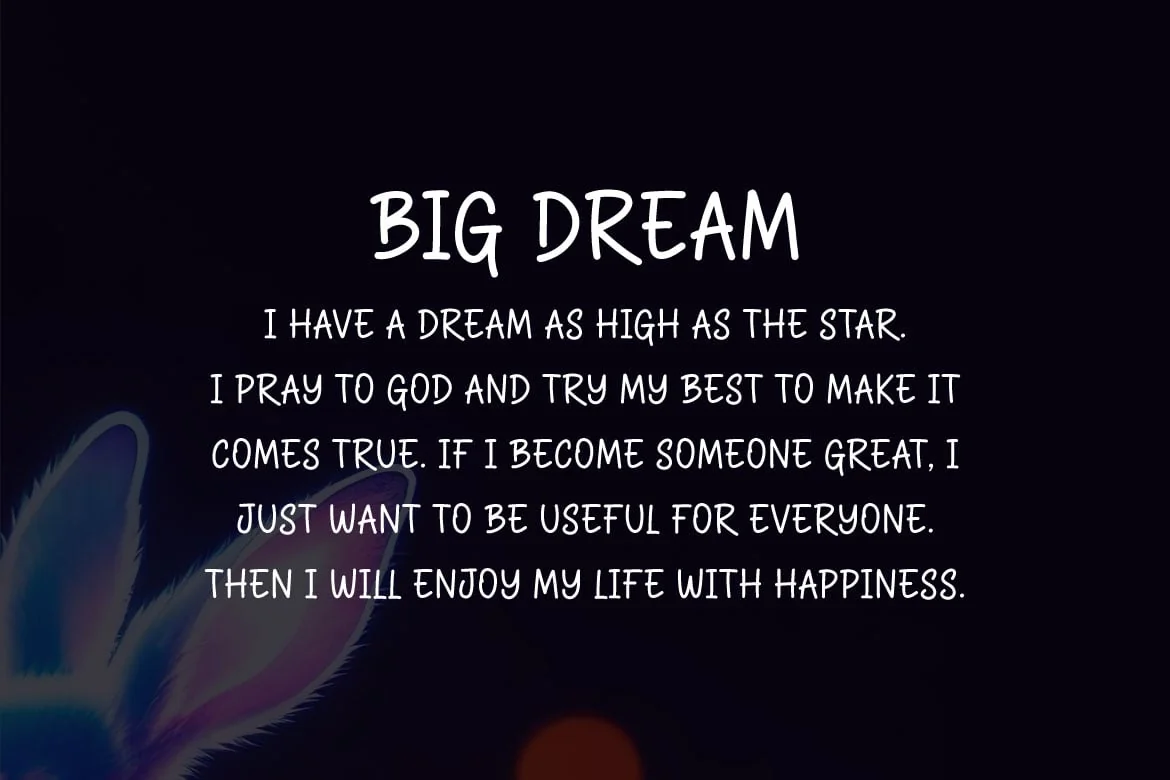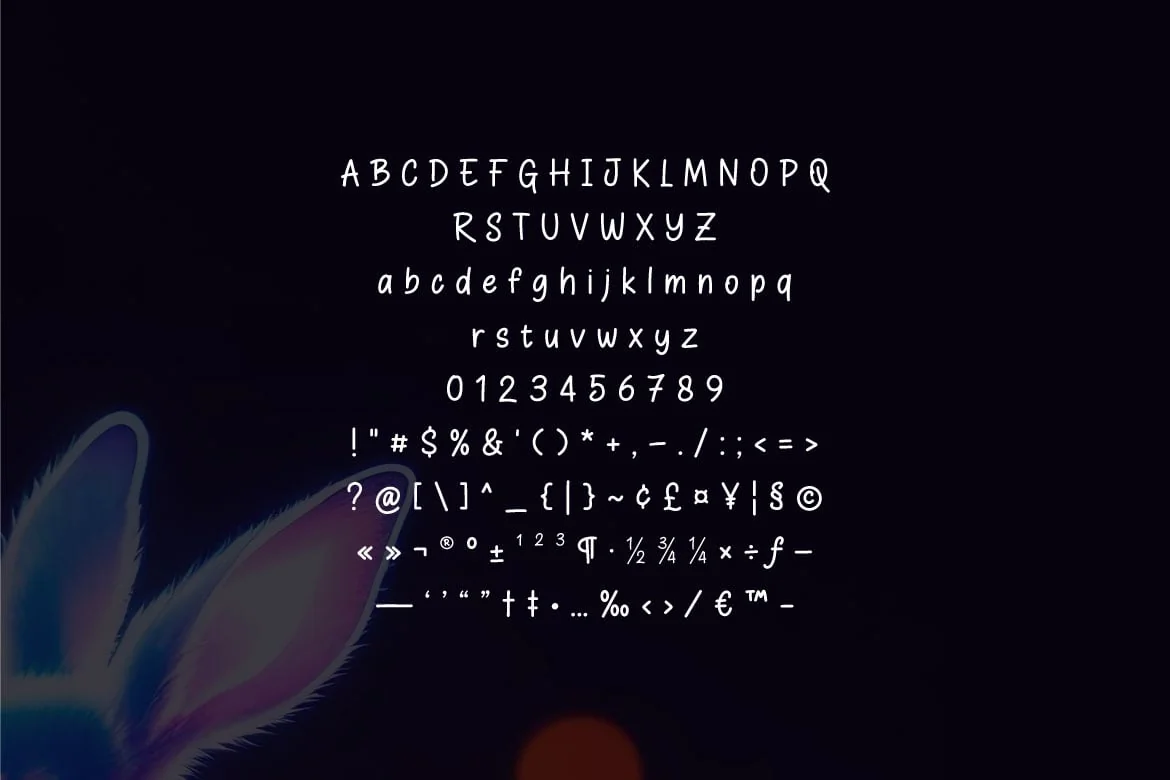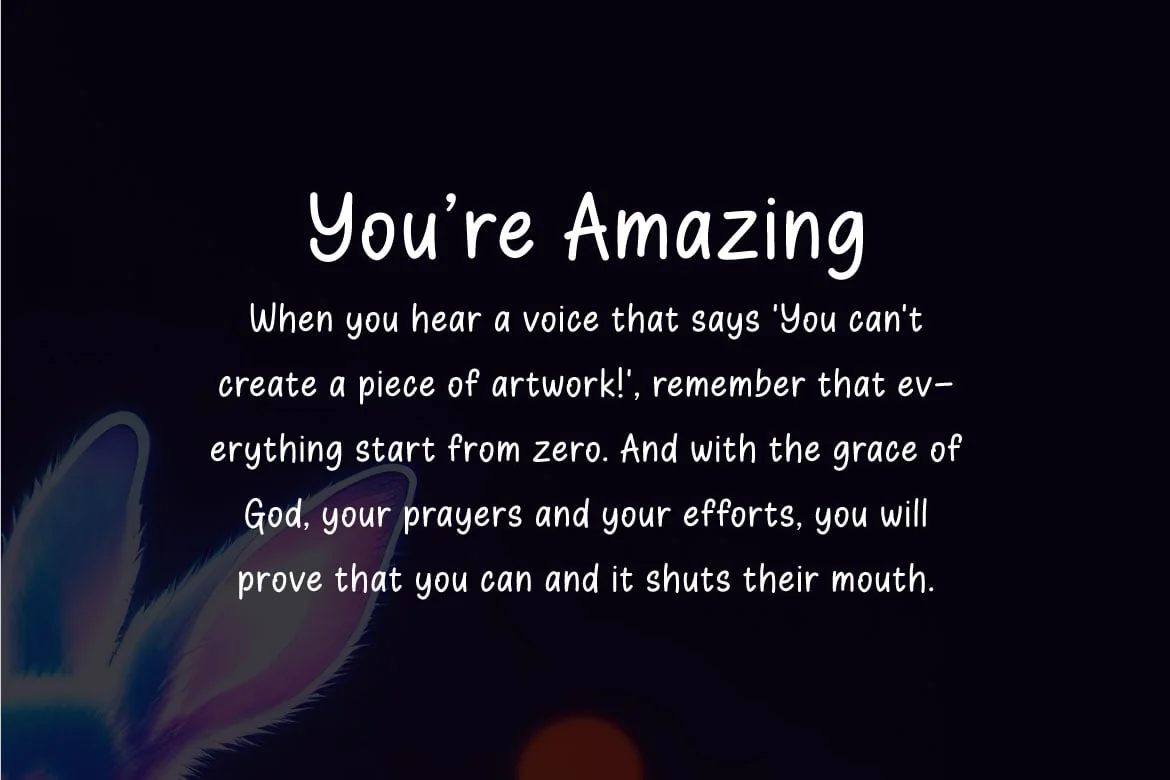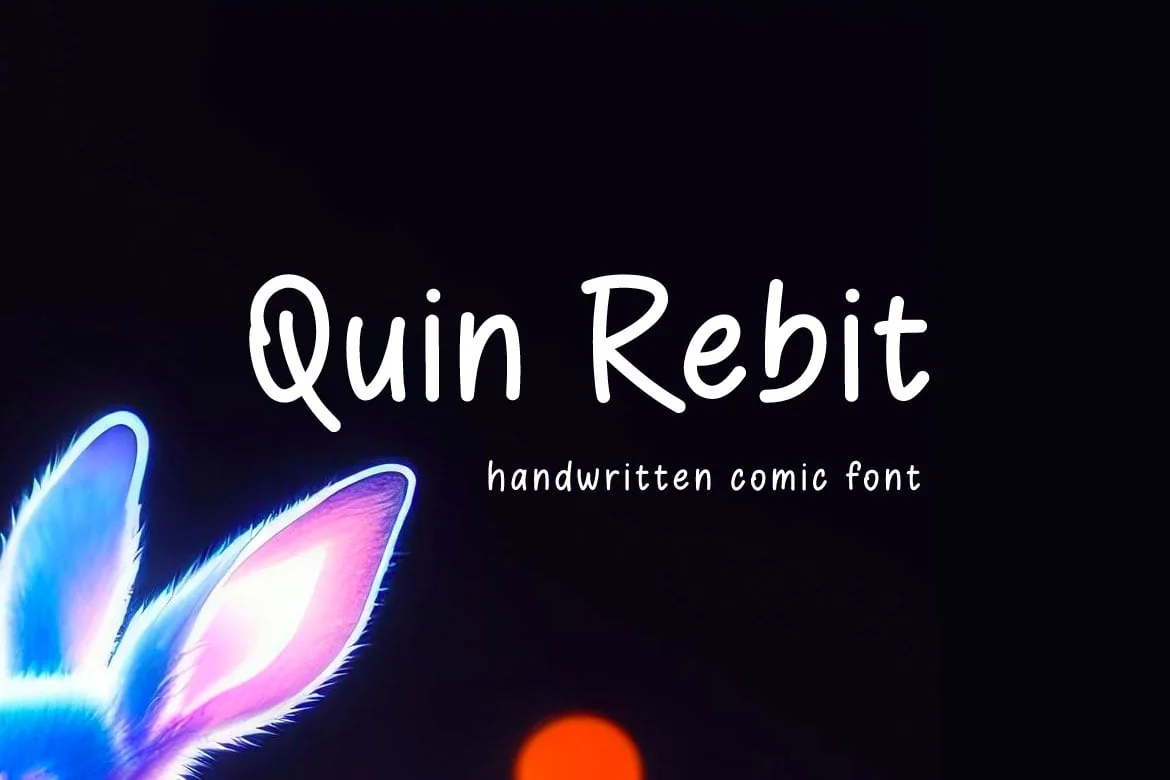
Quin Rebit – Handwritten Comic Font
Hello! Quin Rebit is a handwritten comic font.
Quin Rebit can be used in any works such as flyer, book title, advertisement, social media content, logo and many more.